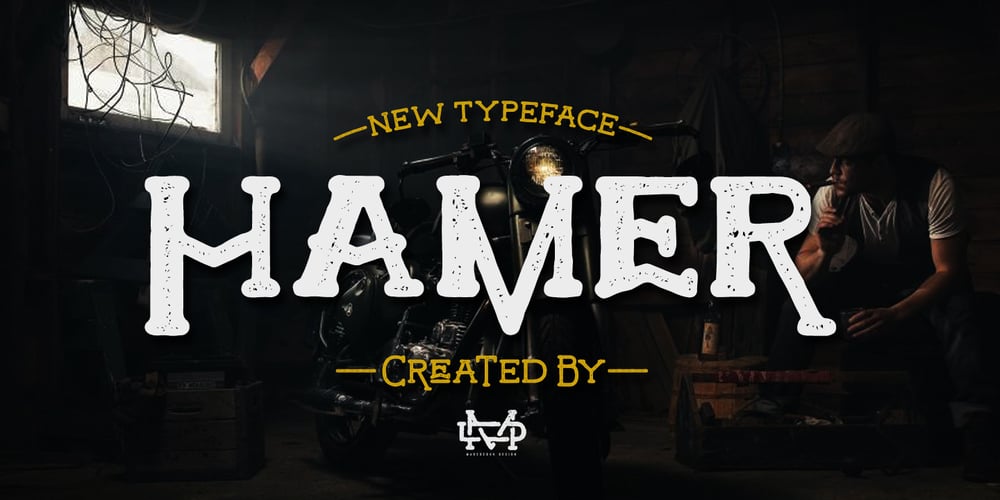
Hamer
Hamer font
Hamer Font Family was designed by Suandana ipandemade and published by madeDeduk. Hamer contains 4 styles and family package options. I’m really excited to introduce Hamer, a new old school typeface with a vintage look! Hamer is available in 2 different styles, solid and rough. Hamer is perfect for poster design, book covers, merchandise, fashion campaigns, newsletters, branding, advertising, magazines, greeting cards, album covers, and quote designs and more.Features UPPERCASE Lowercase Numbers & Symbol International Glyphs Alternative UPPERCASE Alternative Lowercase Ligatures If you need anything else, just shoot me on email at: dedukvic@gmail.com